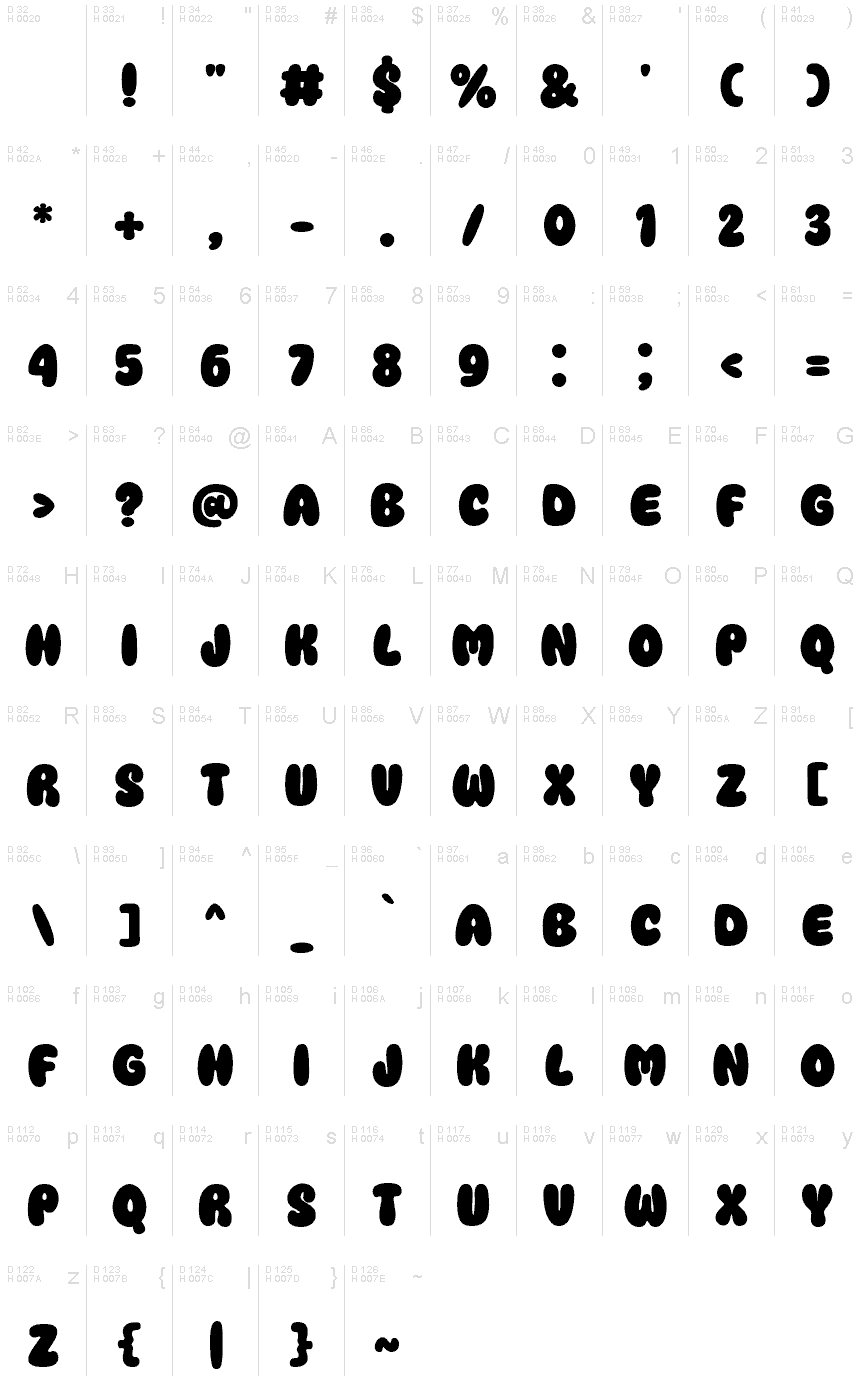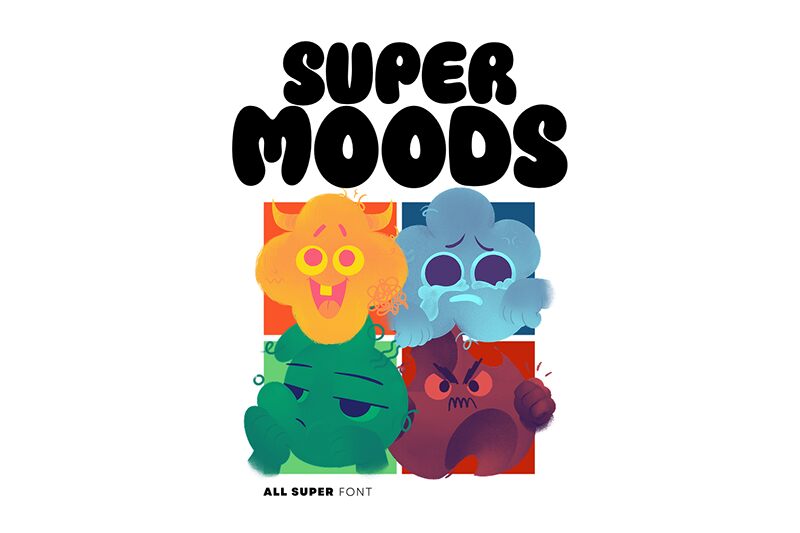
Super Moods
Super Moods font by fsuarez913 is a bold display cartoon font in a retro style. It is bubbly with a vintage appeal that matches the contemporary use in branding and posters. Super Moods has a friendly character and playful personality which explains why it can evoke so many emotions when applied to design projects.
This free handwriting font will be superb for branding, label designs, logos, stationery printing, packaging of consumer goods and t-shirt designs. Give it the stage to shine in headlines of posters or magazines. The best applications are on children related projects such as snacks or animated cartoons.